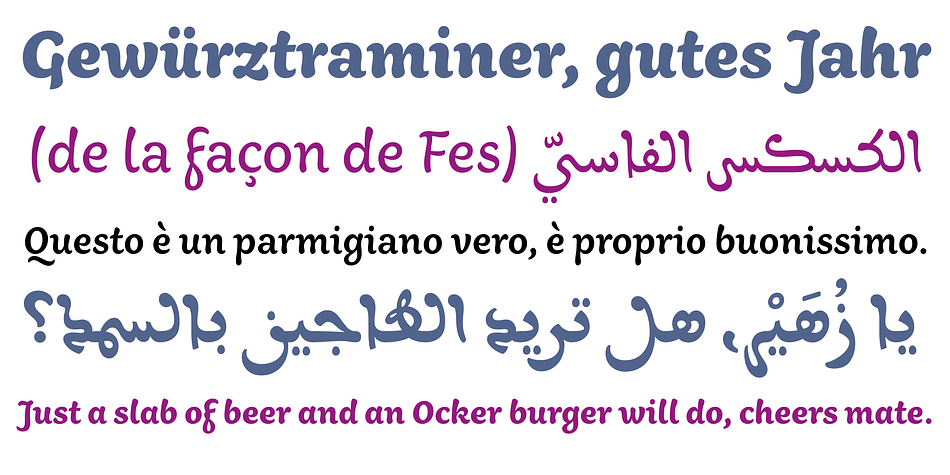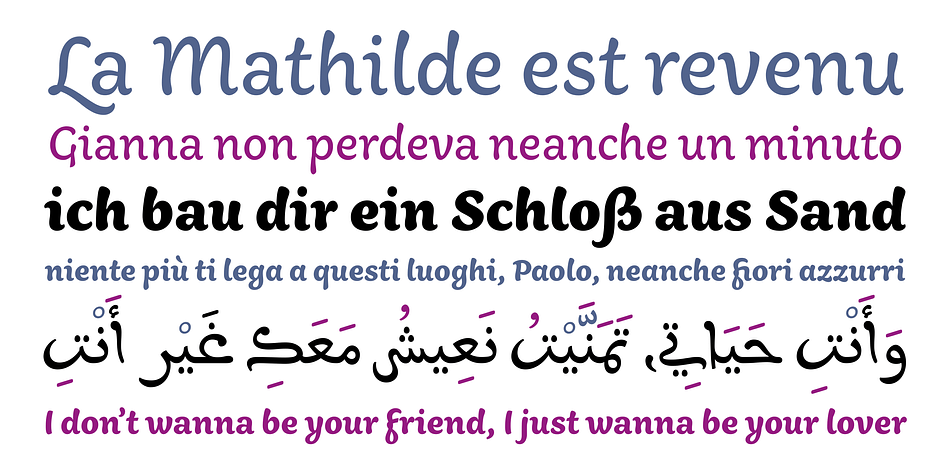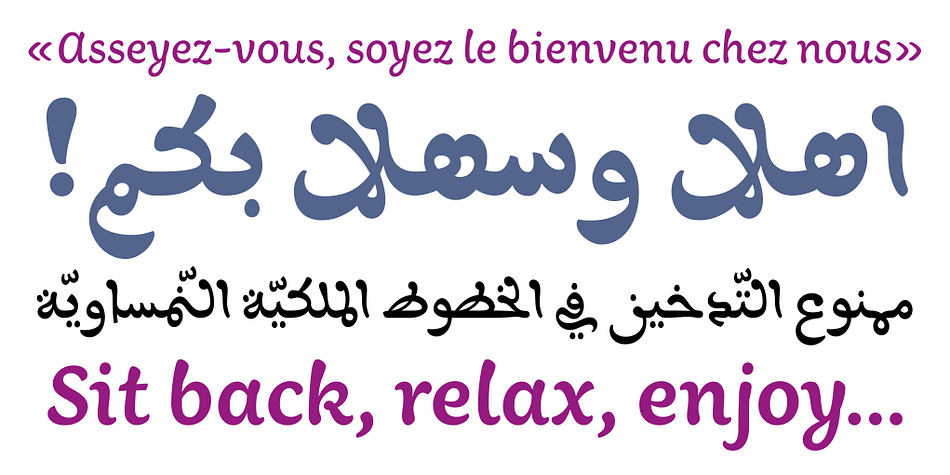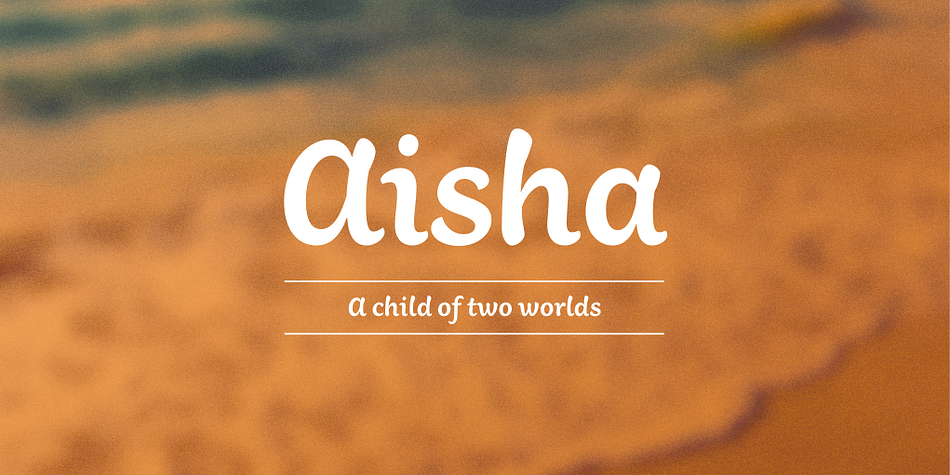
Aisha
Aisha is a brush script font family. This typeface has four styles and was published by Rosetta.
Aisha originated from research about the Maghribi script – its regular Arabic weight is based on the foundry type Titus discovered in a 19th century book.
In the process of design Titus reinterpreted the sources within the framework provided by current usage and technology.
He developed a Latin face to accompany the Arabic, drawing both as independently usable, yet closely related typefaces.
The Latin version of Aisha is one of the designs where the style of the Arabic version shaped the direction for the Roman letters, rather than the other way around.
Aisha originated from research about the Maghribi script – its regular Arabic weight is based on the foundry type Titus discovered in a 19th century book. In the process of design Titus reinterpreted the sources within the framework provided by current usage and technology. He developed a Latin face to accompany the Arabic, drawing both as independently usable, yet closely related typefaces.
The Latin version of Aisha is one of the designs where the style of the Arabic version shaped the direction for the Roman letters, rather than the other way around. Drawing on research around Maghribi calligraphy, and inspired by expressive Moroccan lettering, the resulting designs feature generous curves and joyful variations, rendering Aisha a historically informed typeface for contemporary requirements, with a wide range of weights in both Arabic and Latin.